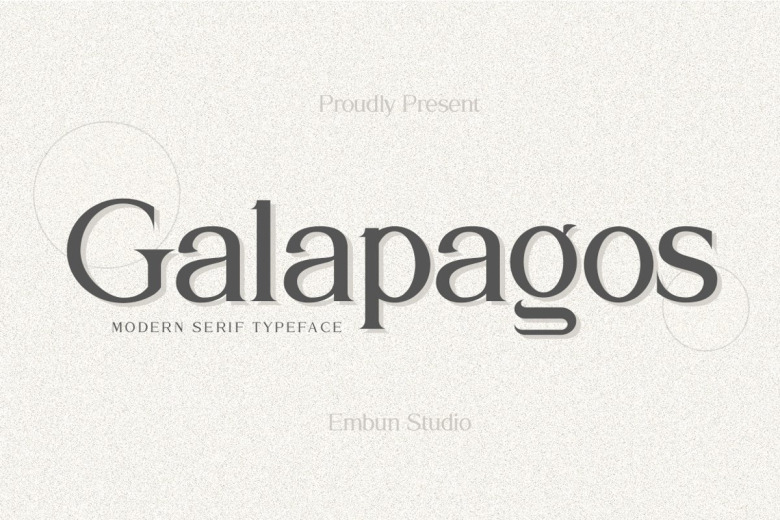
Galapagos Modern Serif Typeface
Introducing Galapagos Modern Serif Font. It is a serif font from the designer Embun Studio. Specially designed for haute couture projects, perfectly suitable for creating fashionable, bold design such as title, magazine, social media, and more. you’ll find a beauty, luxury and serenity when you use it for your project.